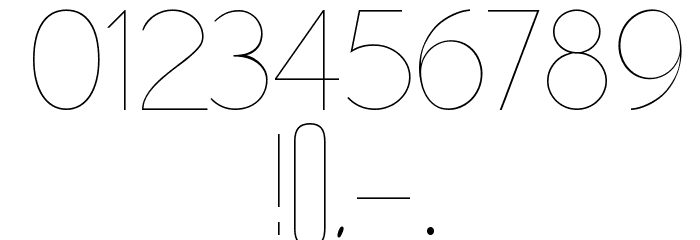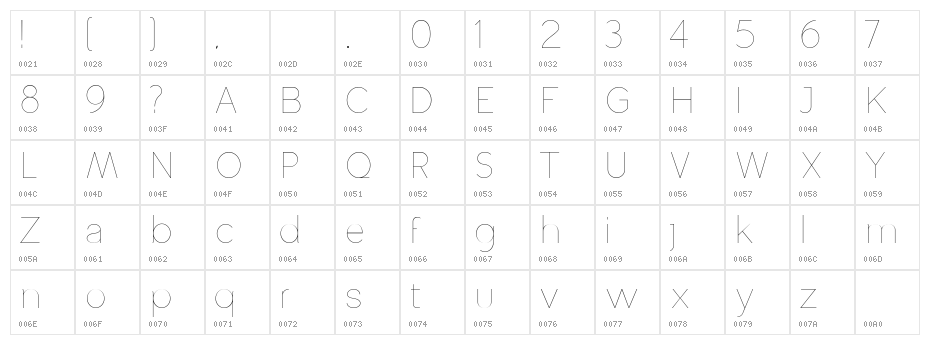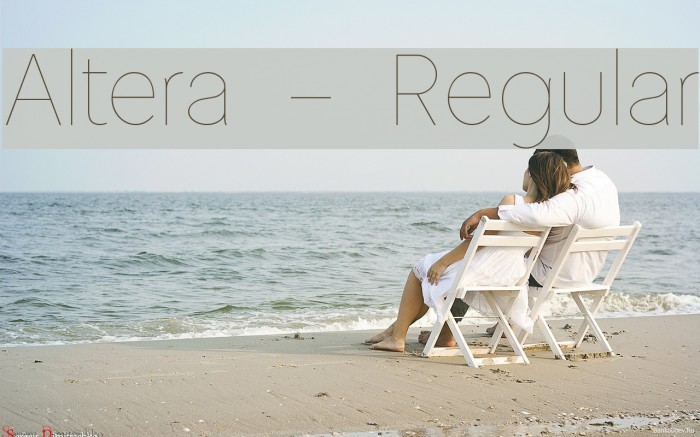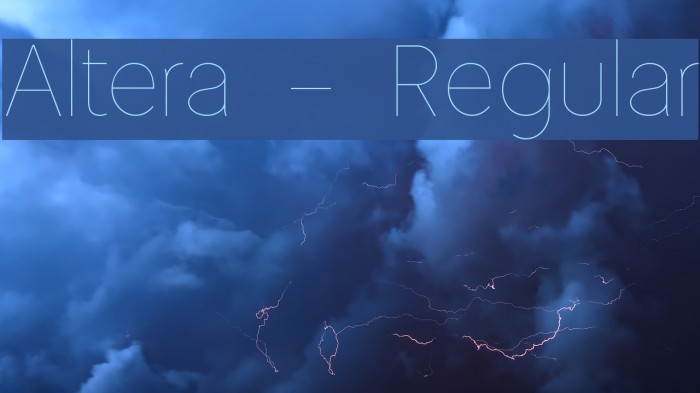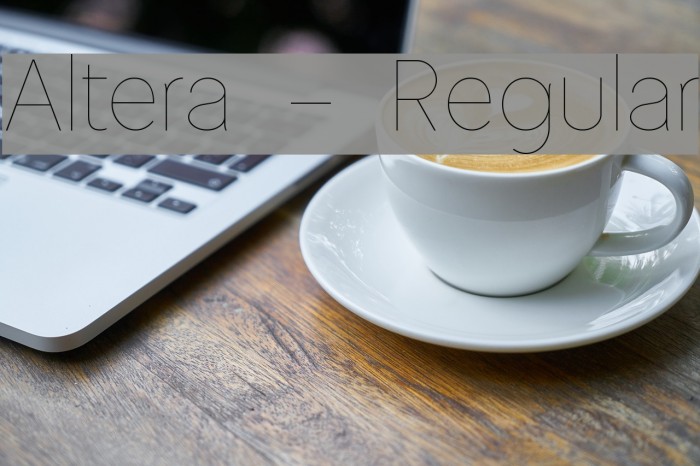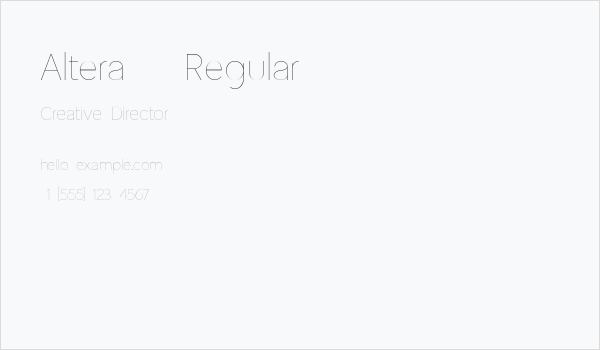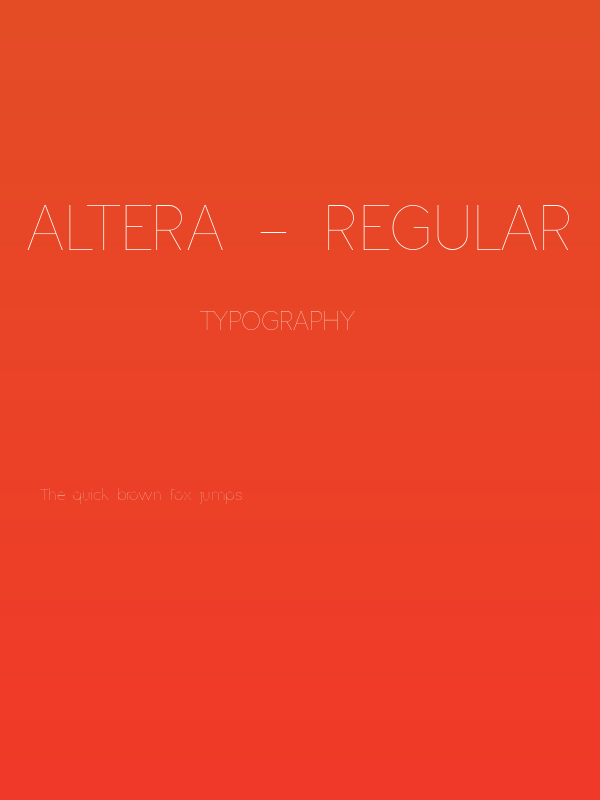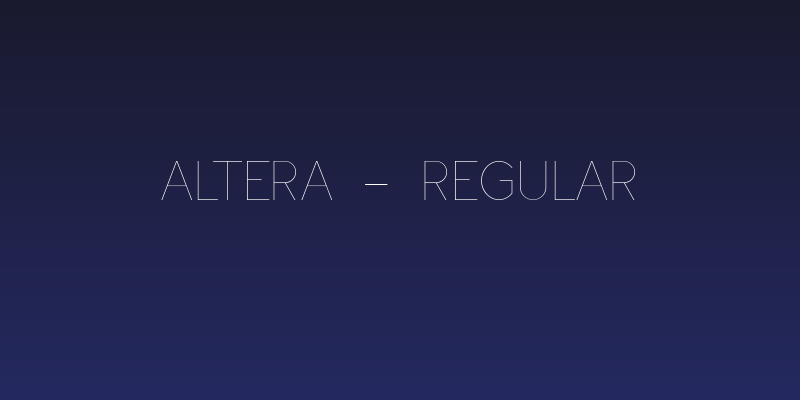
Altera - Regular Font
Altera - Regular Description
This font features a sleek and modern design with clean lines and a minimalist aesthetic. The characters are evenly spaced, providing a balanced and harmonious appearance. The uppercase letters are tall and elegant, while the lowercase letters maintain a consistent height, creating a cohesive look. The numerals are clear and easy to read, making them suitable for various applications. Special characters are designed with the same attention to detail, ensuring they blend seamlessly with the rest of the font. Overall, this font exudes a sense of sophistication and contemporary style.
Use CaseHeadlines, Body text, Logos
Proposed ProjectsIdeal for branding, editorial design, websites, and modern advertising campaigns.